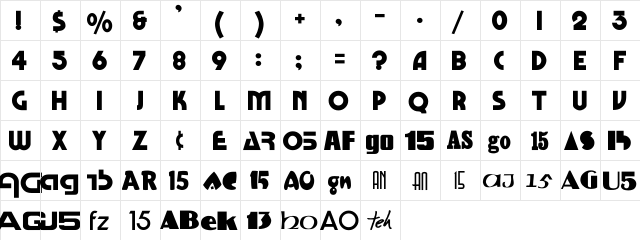
Marbolo-Normal Regular
Design Context for Marbolo-Normal Typeface
Marbolo-Normal takes a measured approach to typography — its balanced proportions and neutral character make it a reliable workhorse for both digital and print work.